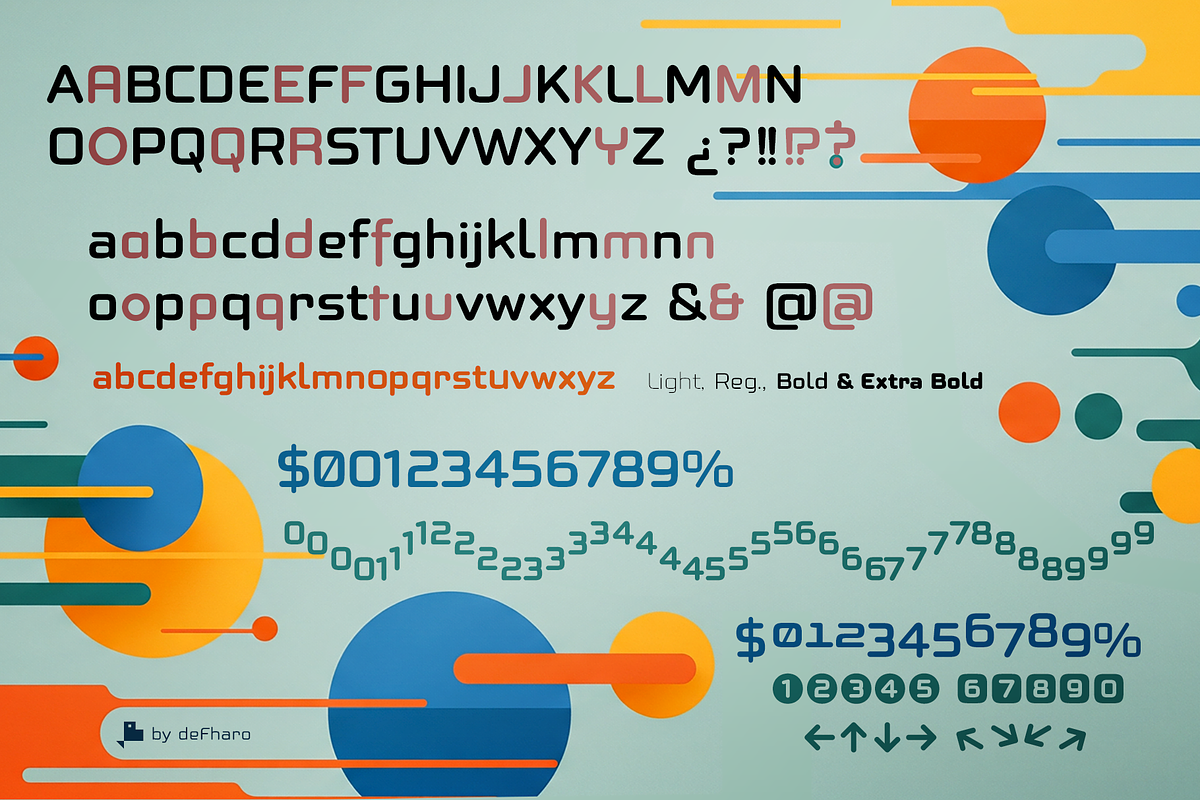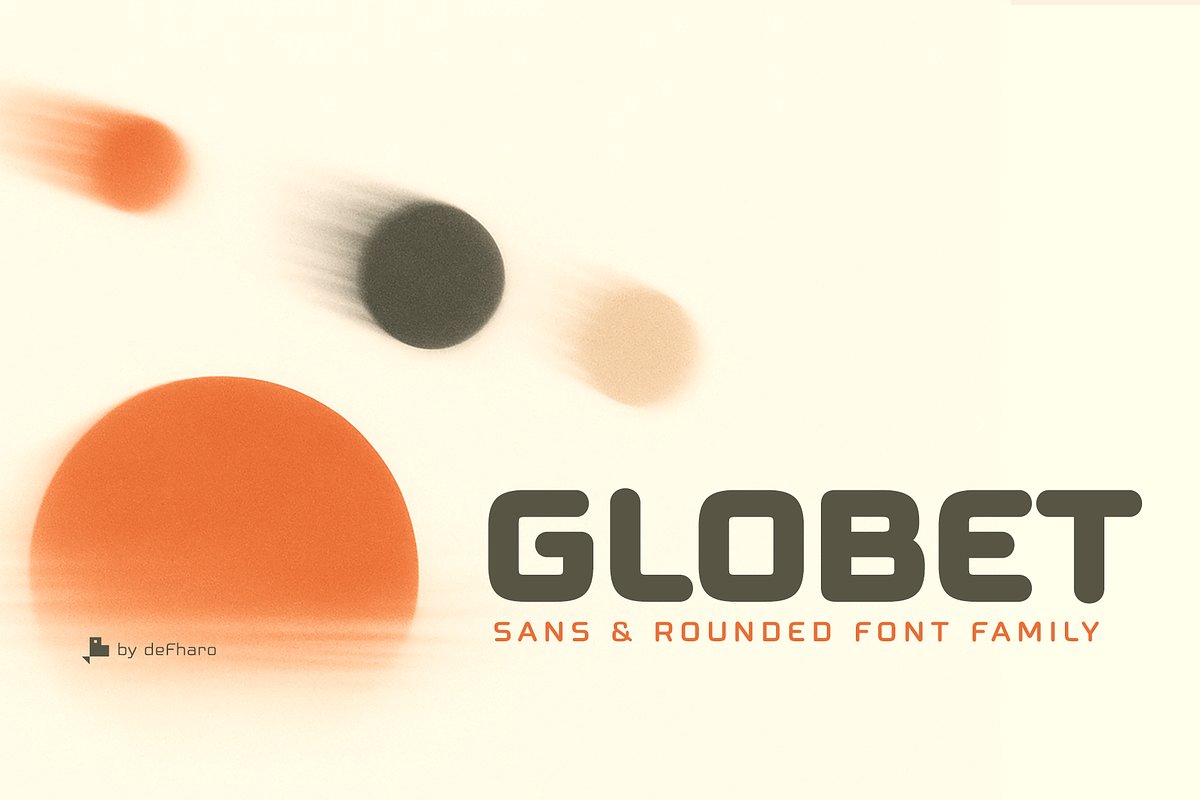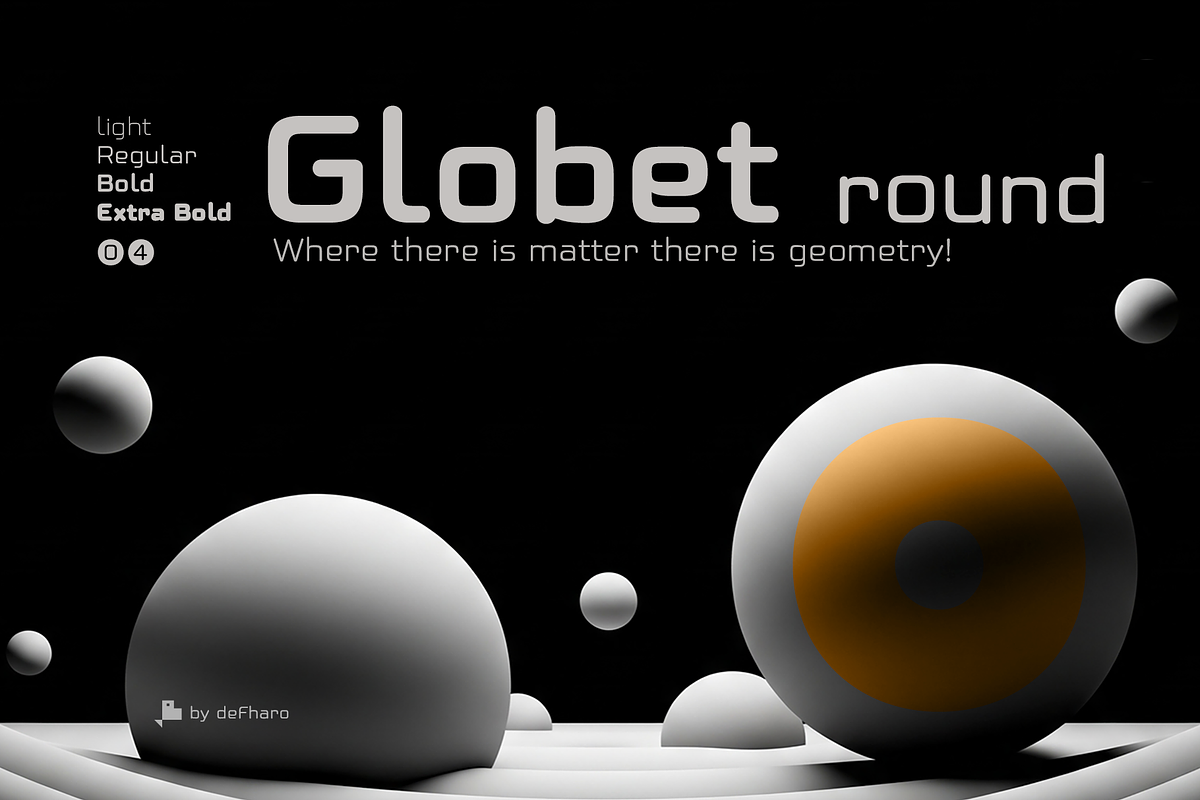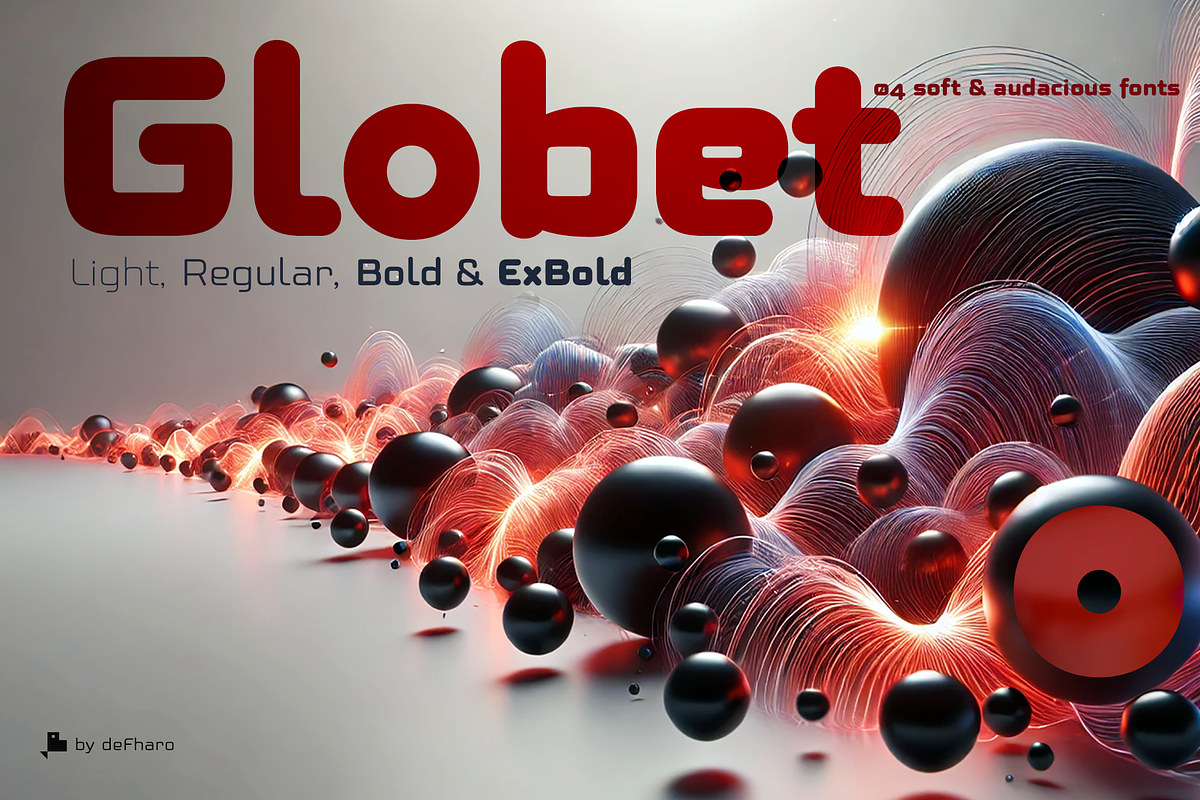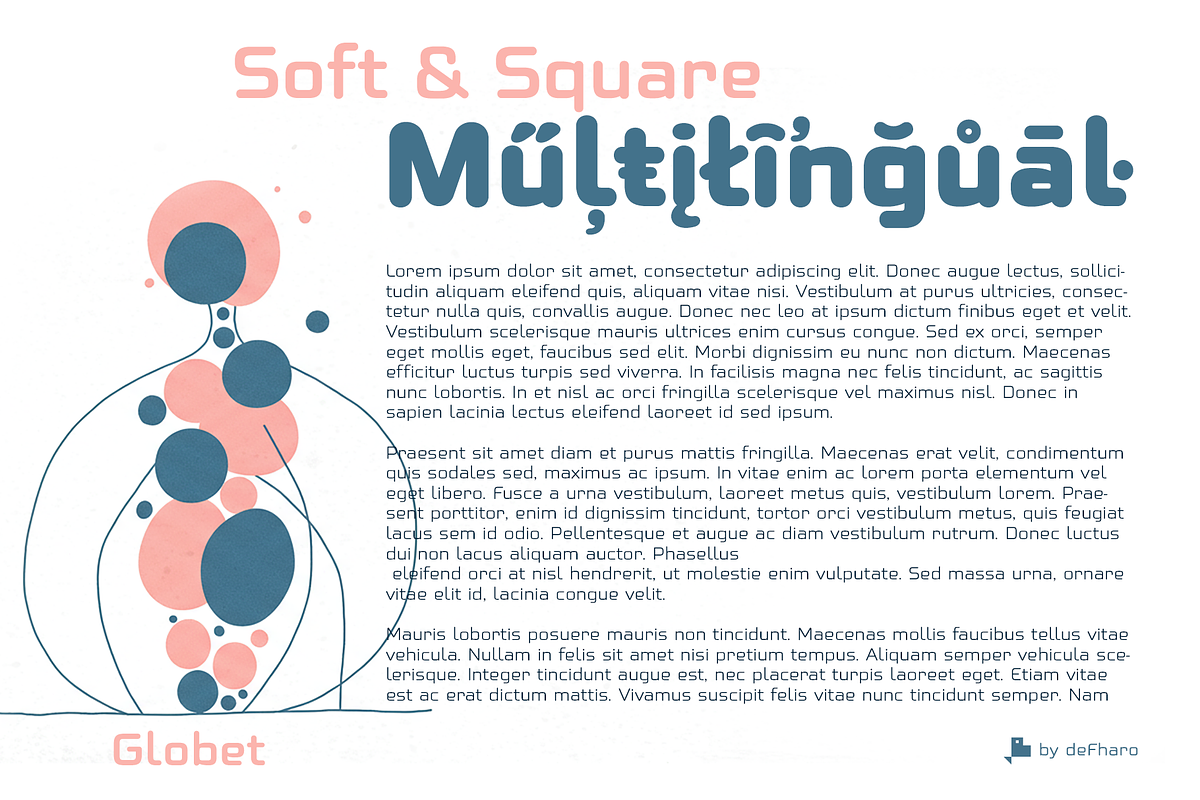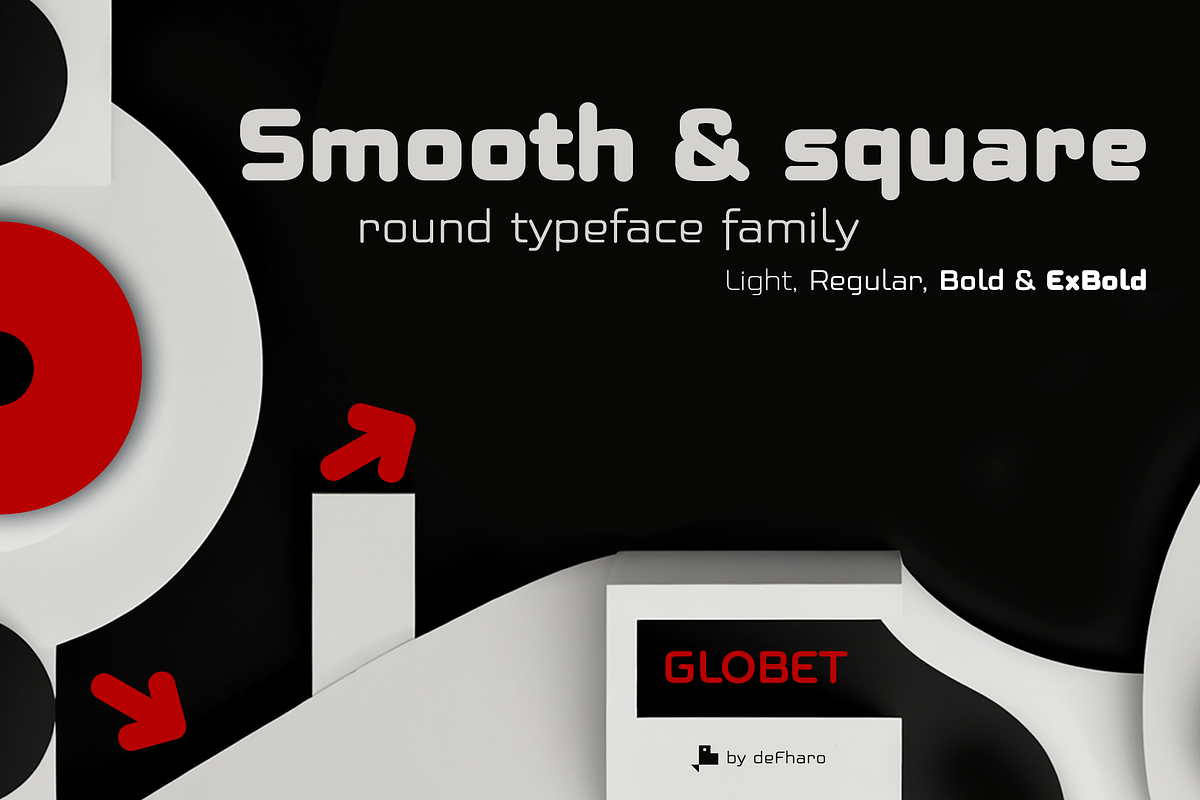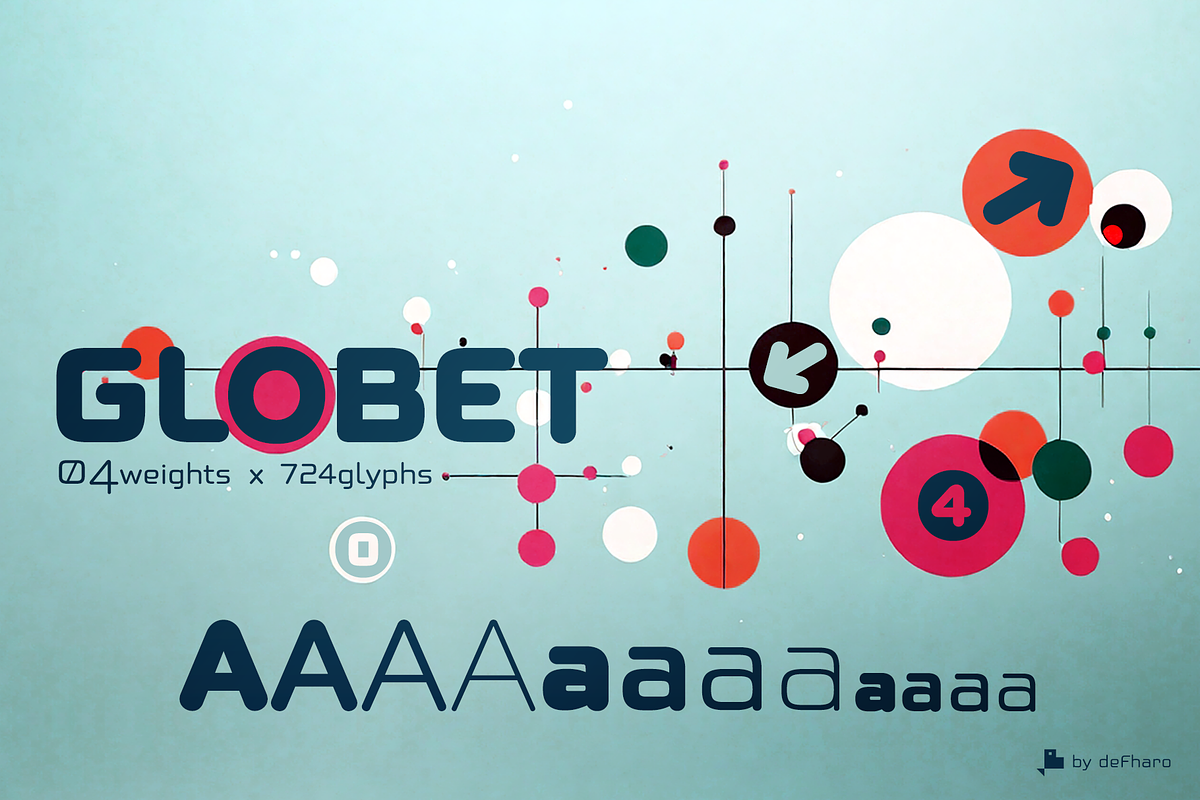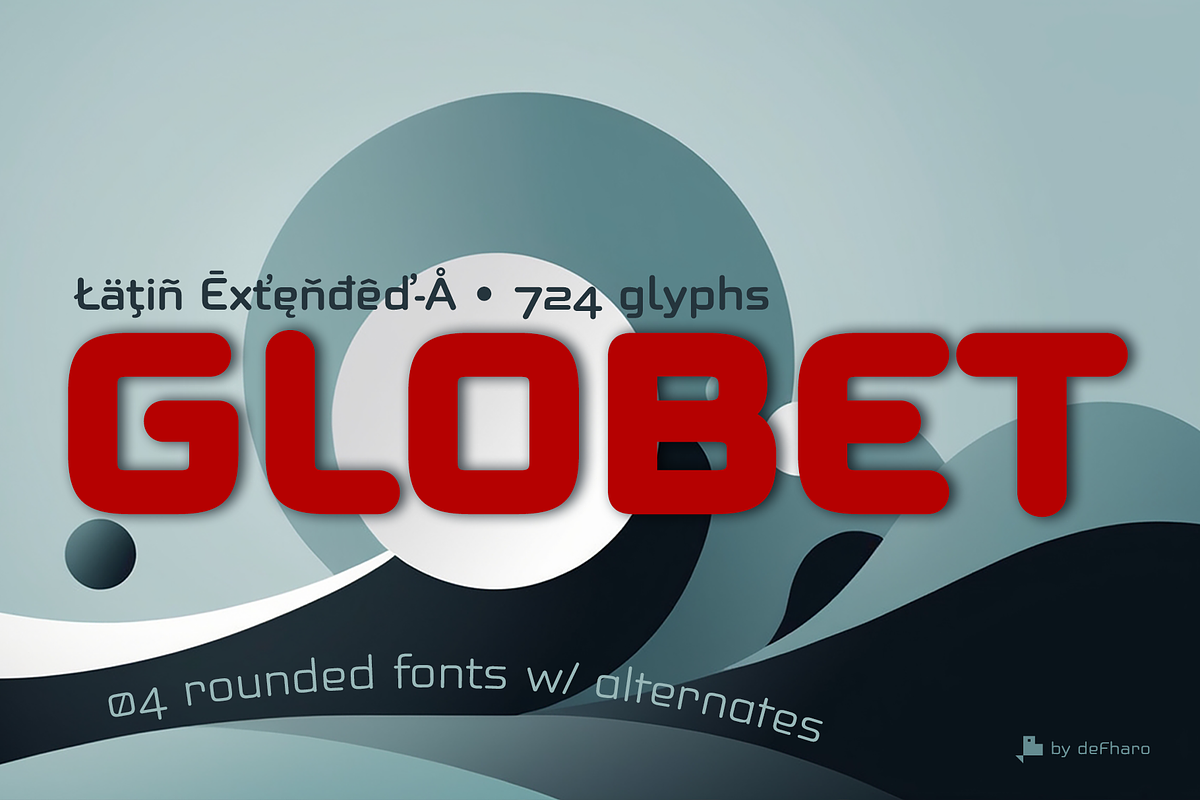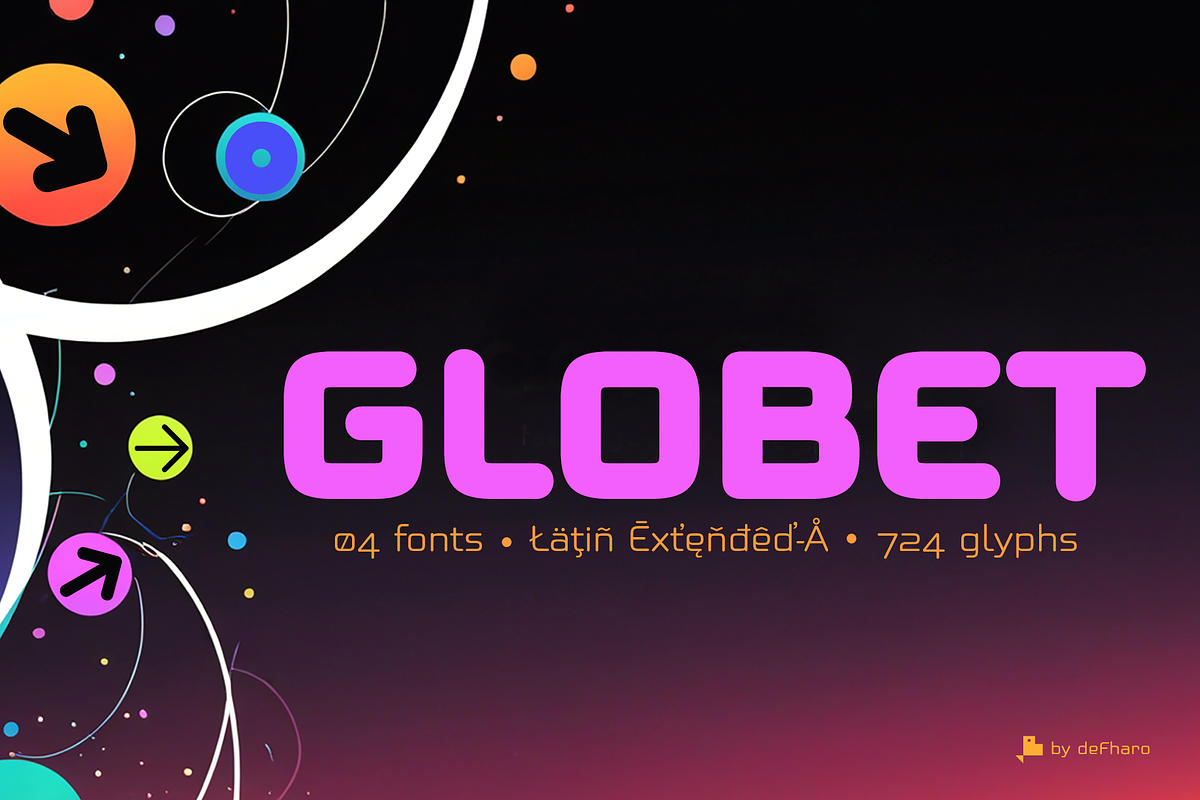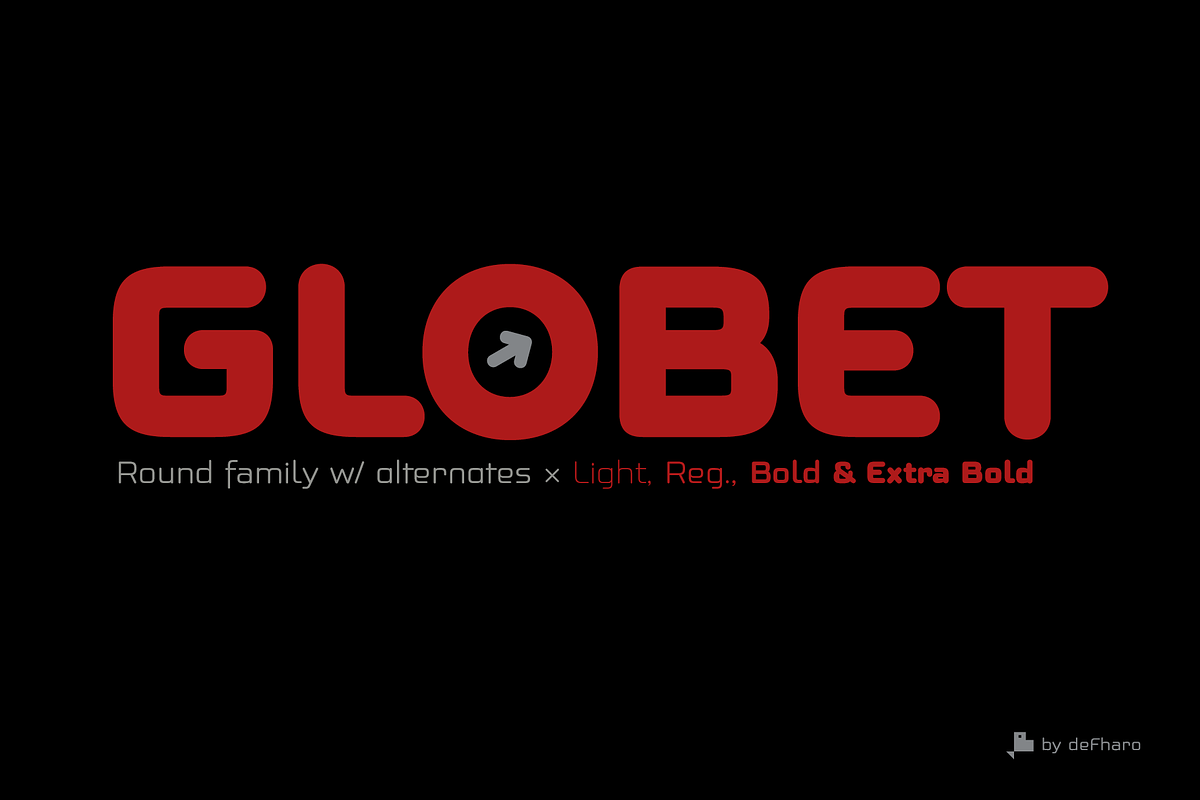
Globet Round
Globet Rounded is a multipurpose conceptual font that perfectly combines boldness with elegance. Globet was born from the desire to balance legibility and personality. Gentle geometry and optical precision come together to create an exceptional reading experience.
Its square proportions provide a solid foundation, while its rounded shapes soften the geometric structure, giving it a friendly, approachable, and modern tone. Rounded typefaces have that unique magic: they communicate with warmth without losing strength; they are versatile, friendly, and highly professional, ideal for brands that want to connect without appearing cold or distant.
Four weights, endless possibilities. Globet Rounded comes in four carefully balanced versions: Light, Regular, Bold, and Extra Bold. You can use it for everything from light and airy body text to striking headlines that demand a strong presence.
🔻Globet Rounded - 04 fonts: Light, Regular, Bold & Extra Bold
731 glyphs. Latin Extended-A. 160 alternates.
Globet Rounded the symbol of Bitcoin, currency symbols & Arrows.
OpenType Features: Additional languages, All Alternates, Bitcoin, Capital Spacing, Contextual Alternates, Denominators, Discretionary Ligatures, Fractions, Historical Forms, Inferiors, Kerning, Localized Forms, Numbers Small Caps, Numerators, Oldstyle Figures, Ordinals, Scientific Inferiors, Slashed Zero, Standard Ligatures, Stylistic Set, Subscript, Superior letters, Superiors, Superscript.